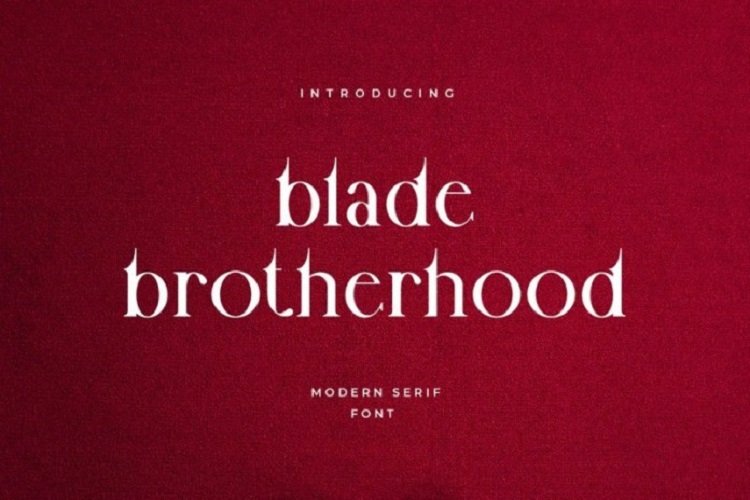
Blade Brotherhood Serif Typeface Font
Blade Brotherhood is a perfect serif type font . Can make it easier to convey the message in your design.
Use for awesome display, labeling, clothing, movie sceen, poster, movie title, gigs, album covers, logos, and much more. It’s also could be good for both fun and semi-formal text.